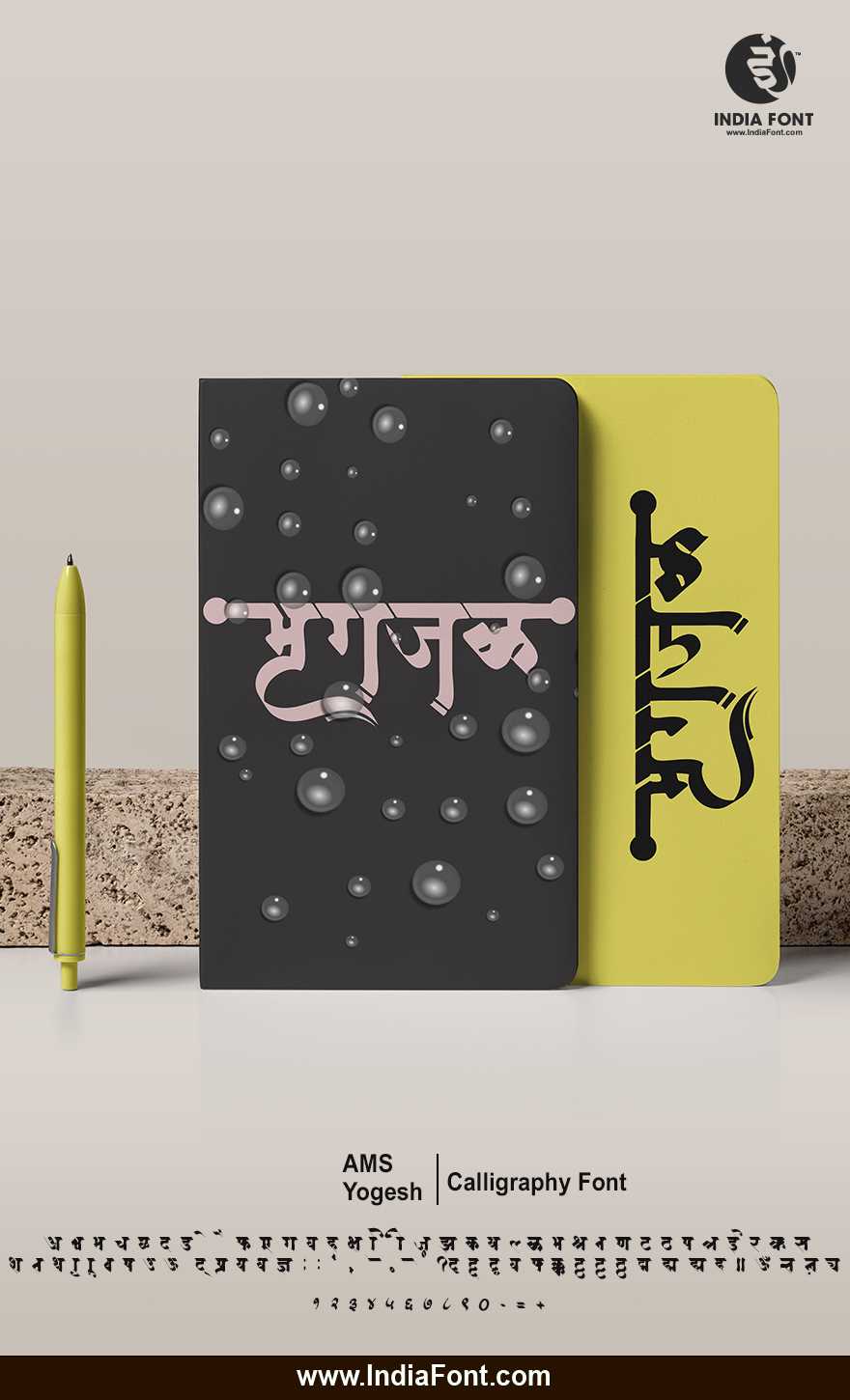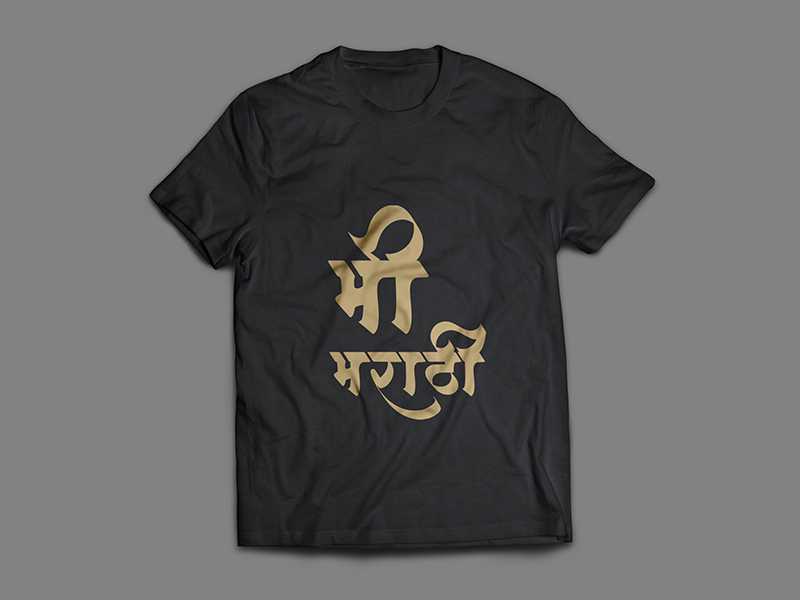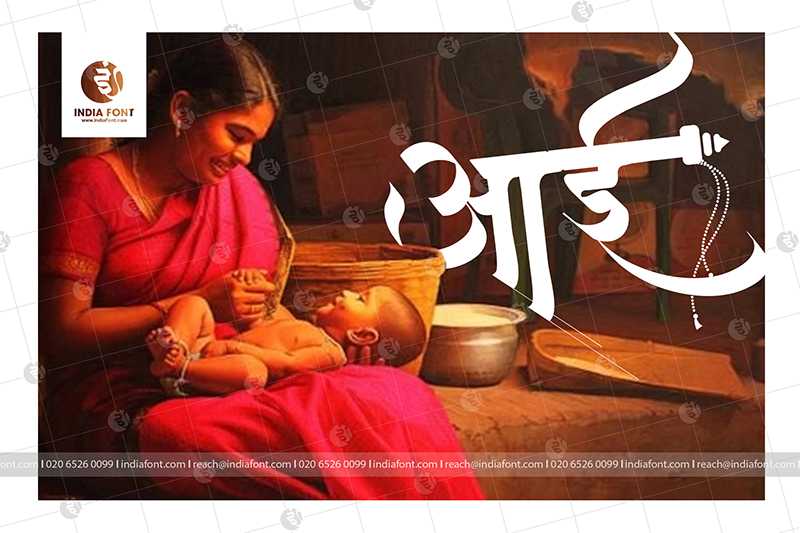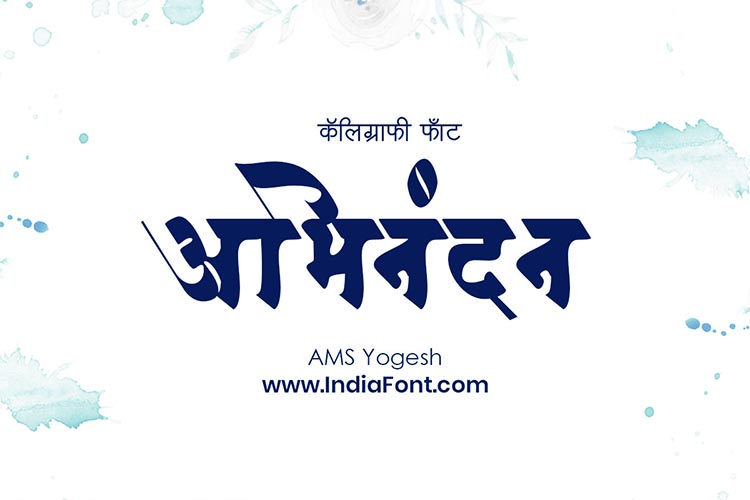
AMS Yogesh
Experience the artistry of AMS Yogesh, a calligraphy font that captures attention with its flowing and expressive letterforms. This font is ideal for designers seeking stylish Hindi fonts, calligraphy fonts that evoke a sense of creativity, or fonts that offer a unique font style download.
Experience the artistry of AMS Yogesh, a calligraphy font that captures attention with its flowing and expressive letterforms. This font is ideal for designers seeking stylish Hindi fonts, calligraphy fonts that evoke a sense of creativity, or fonts that offer a unique font style download. This calligraphy font combines elegance with functionality, making it perfect for various design applications.
AMS Yogesh is a professionally crafted calligraphy typeface that brings clarity and style to your projects. Designed with attention to detail, it supports hindi and marathi characters flawlessly.
Whether you're working on invitations, headers-titles, logos, or other creative projects, AMS Yogesh delivers consistent performance across both digital and print media. This carefully designed typeface ensures readability and visual appeal in all your design work.
AMS Yogesh is a professionally crafted calligraphy font that exemplifies modern Hindi typography design. This free font is perfect for designers seeking professional branding and logo design projects.
Available in 1 weight and supporting hindi, marathi scripts, AMS Yogesh offers exceptional versatility for both digital and print media. Whether you're working on invitations, headers-titles, logos, this carefully designed typeface ensures consistent quality and professional results across all your typography projects.